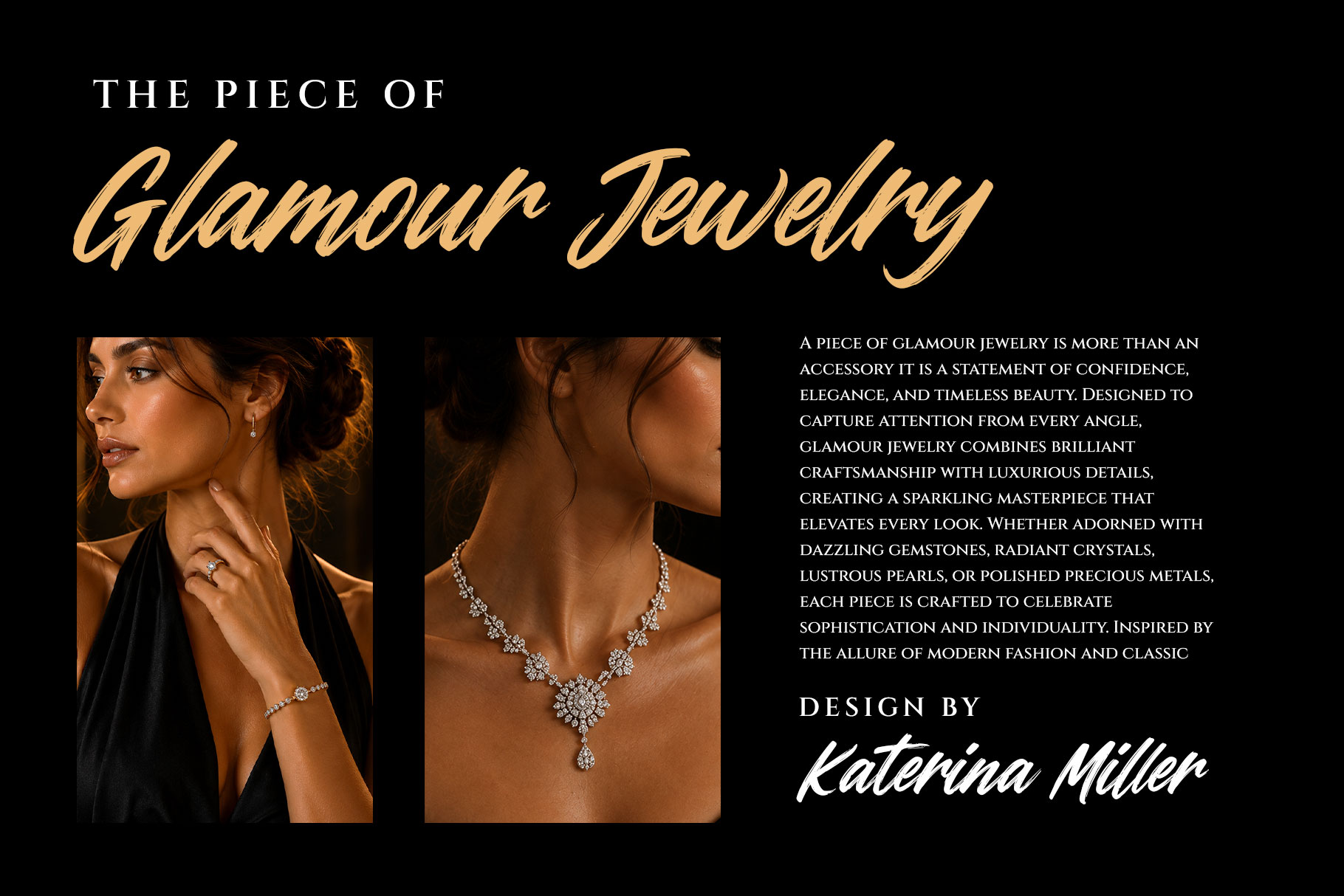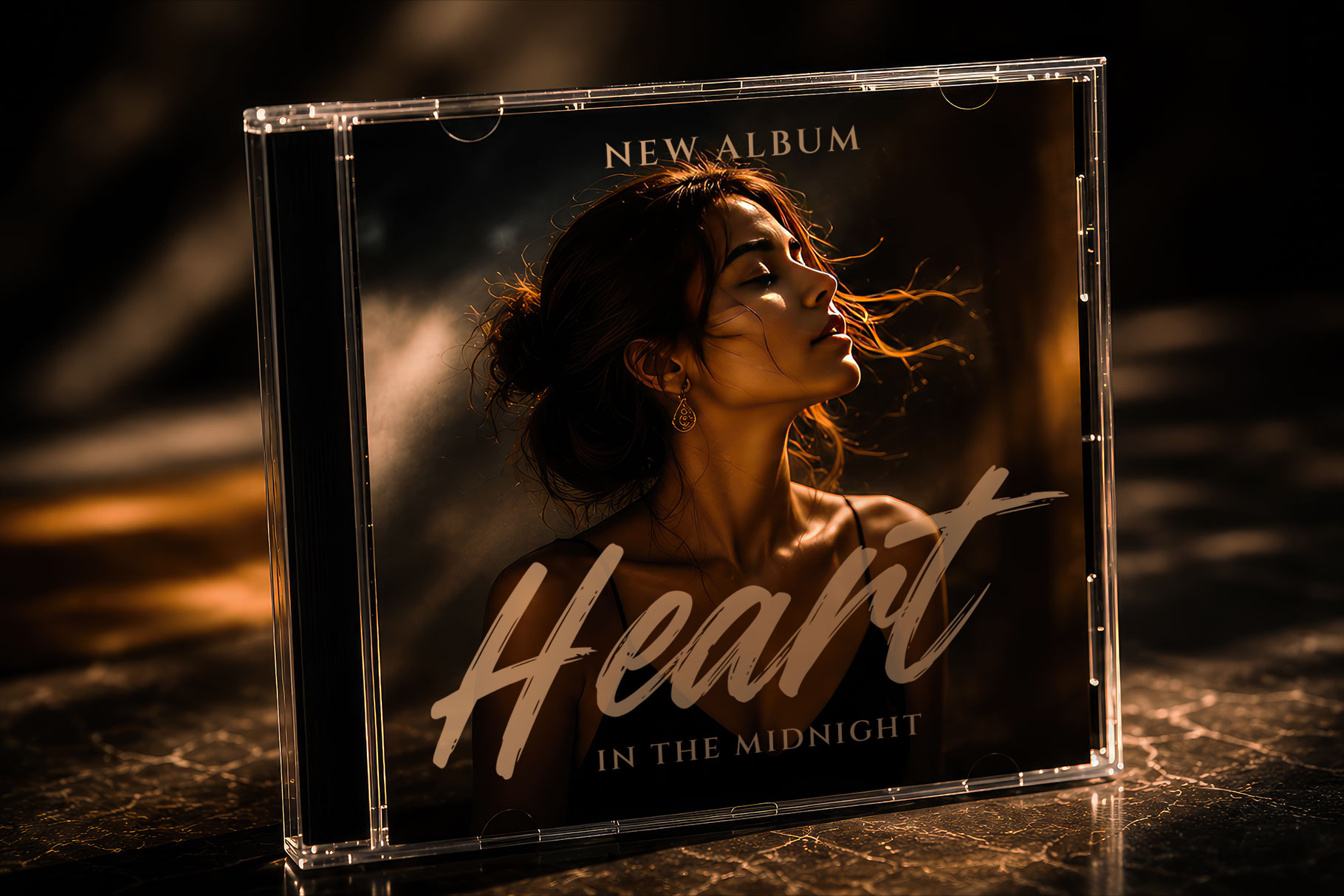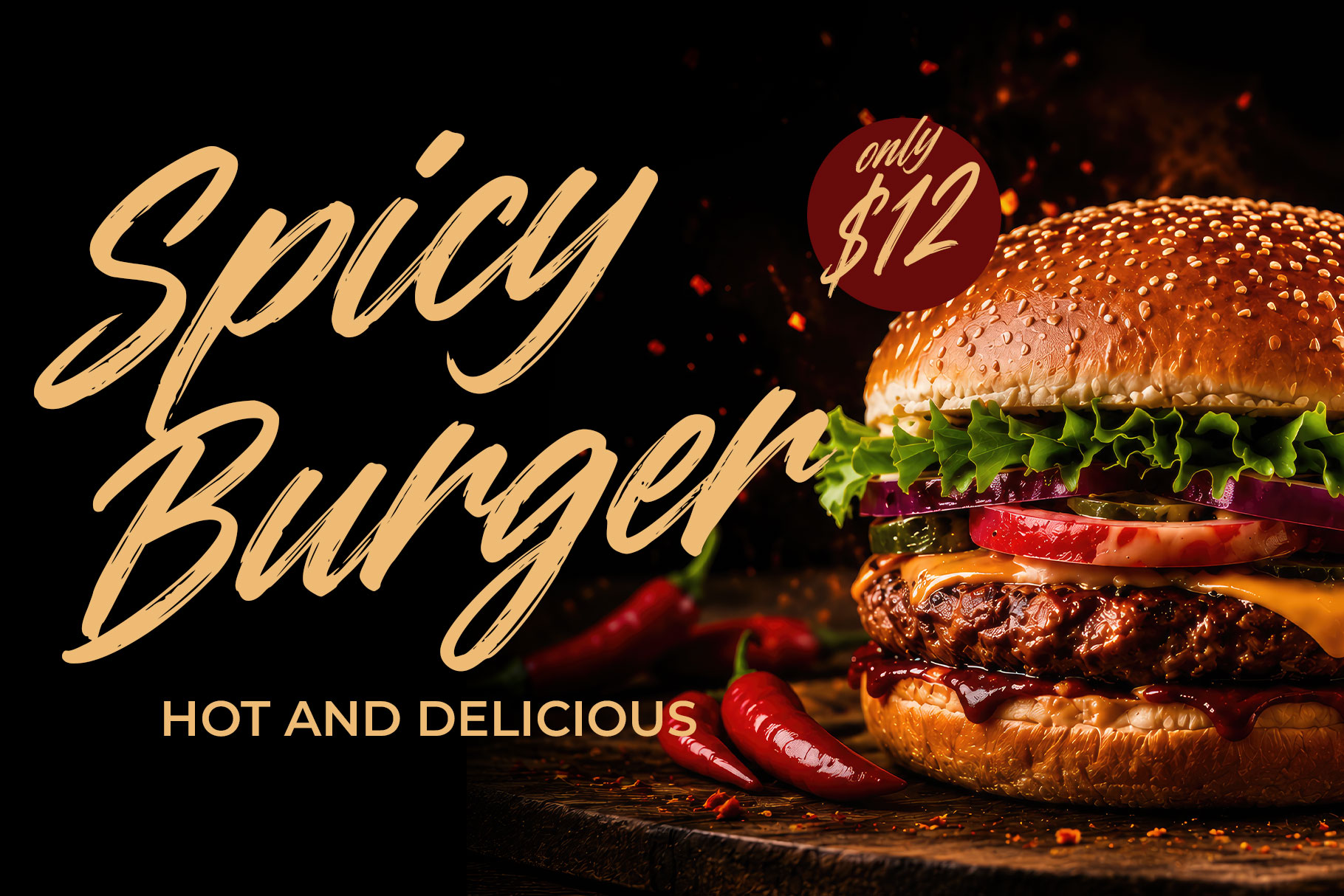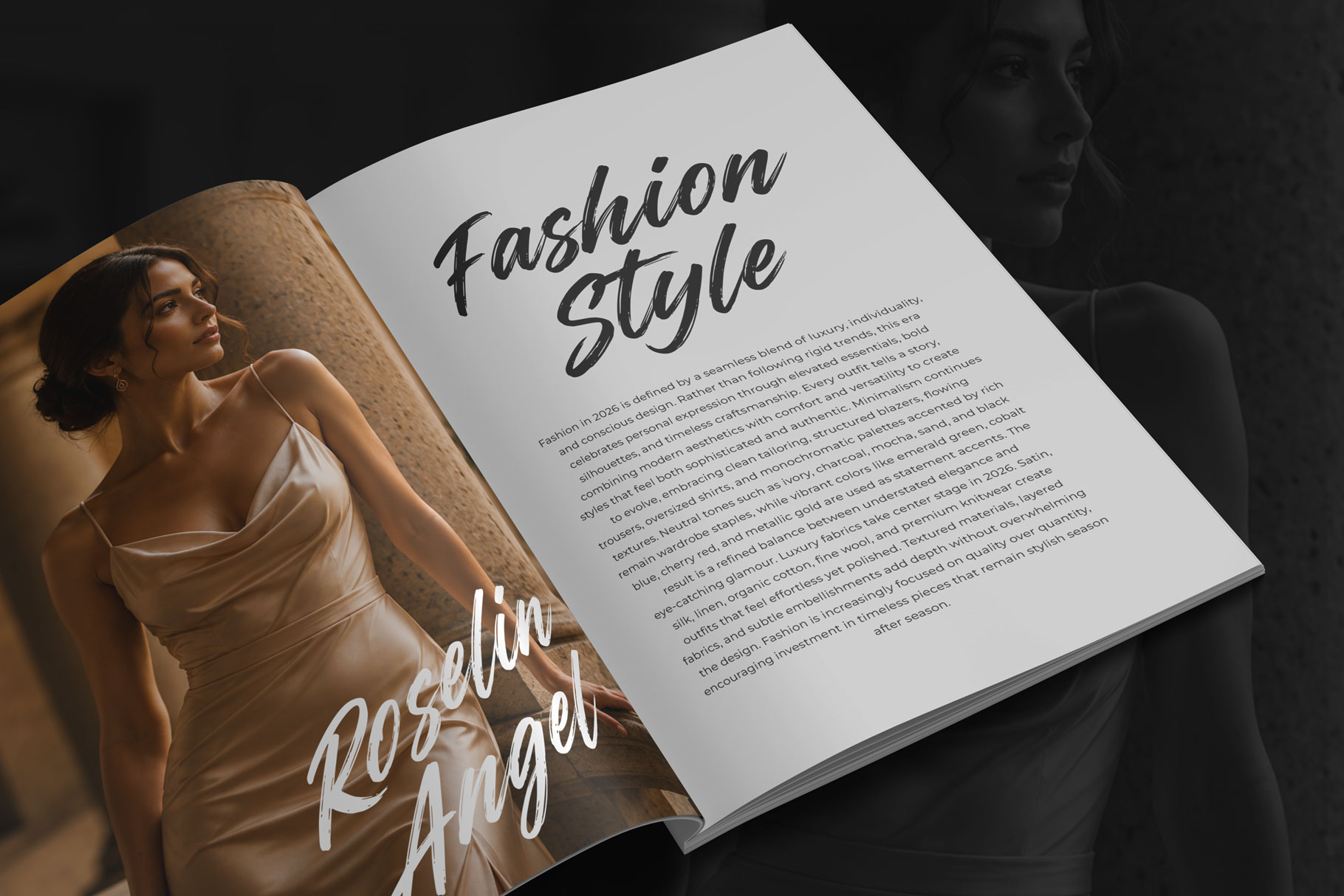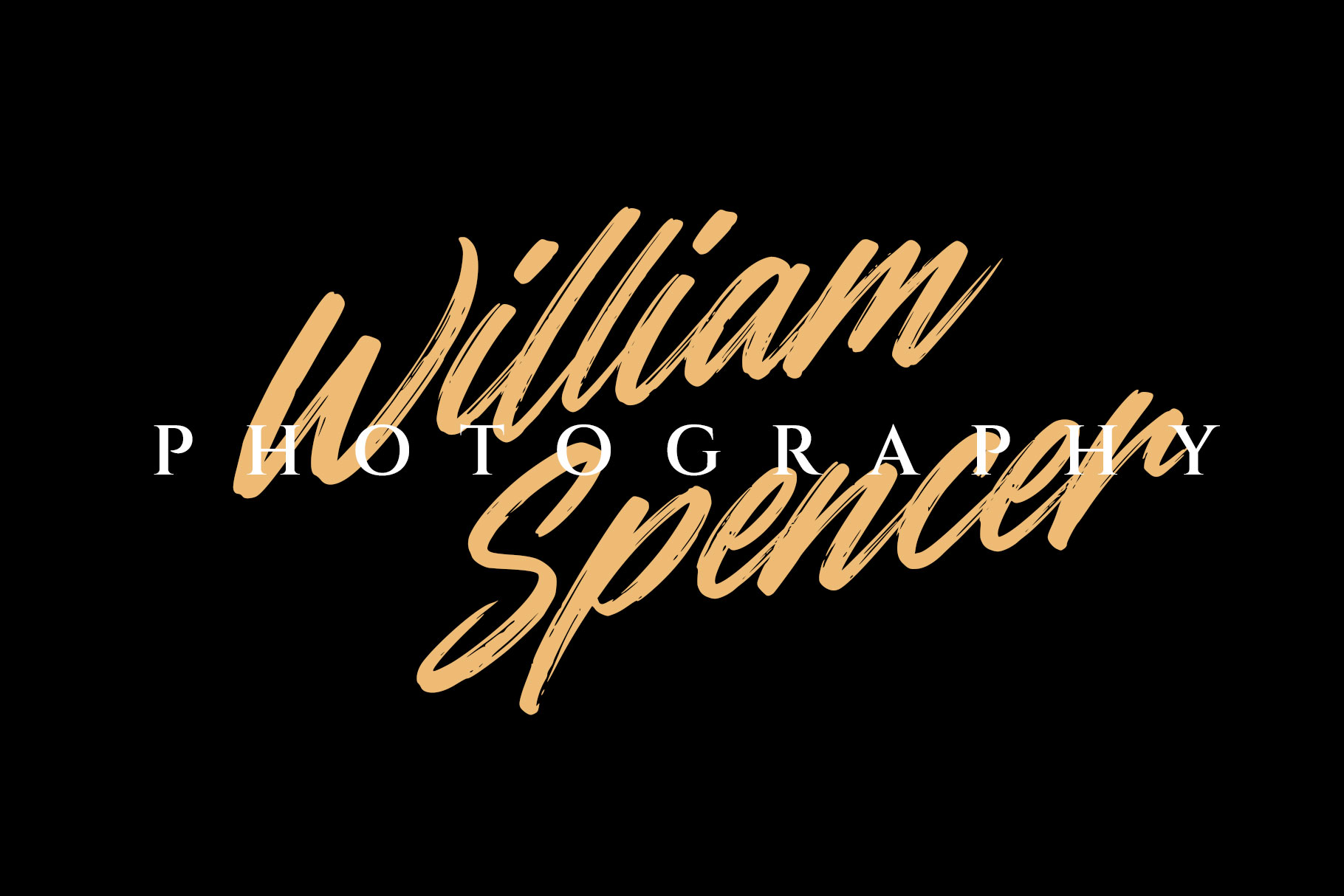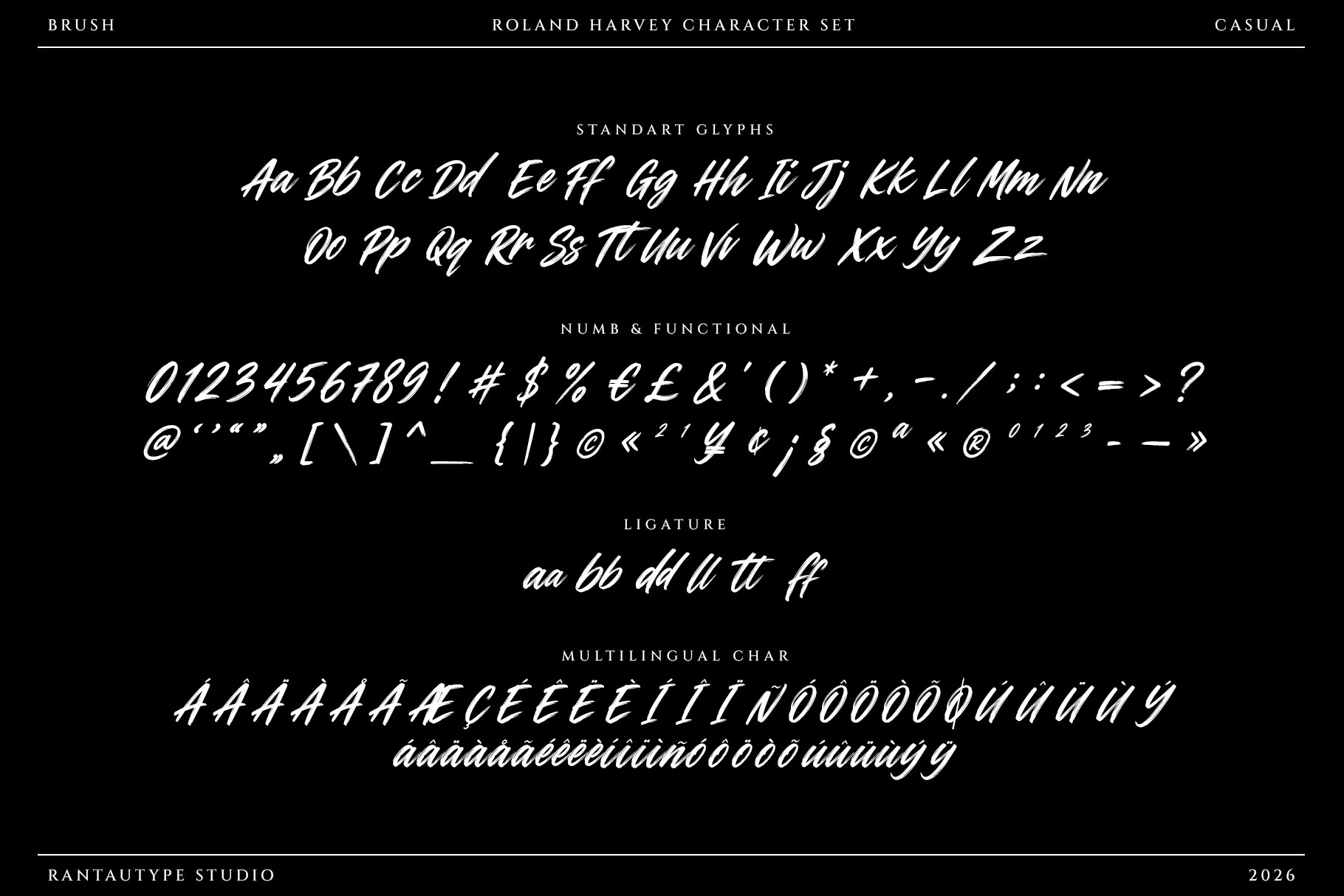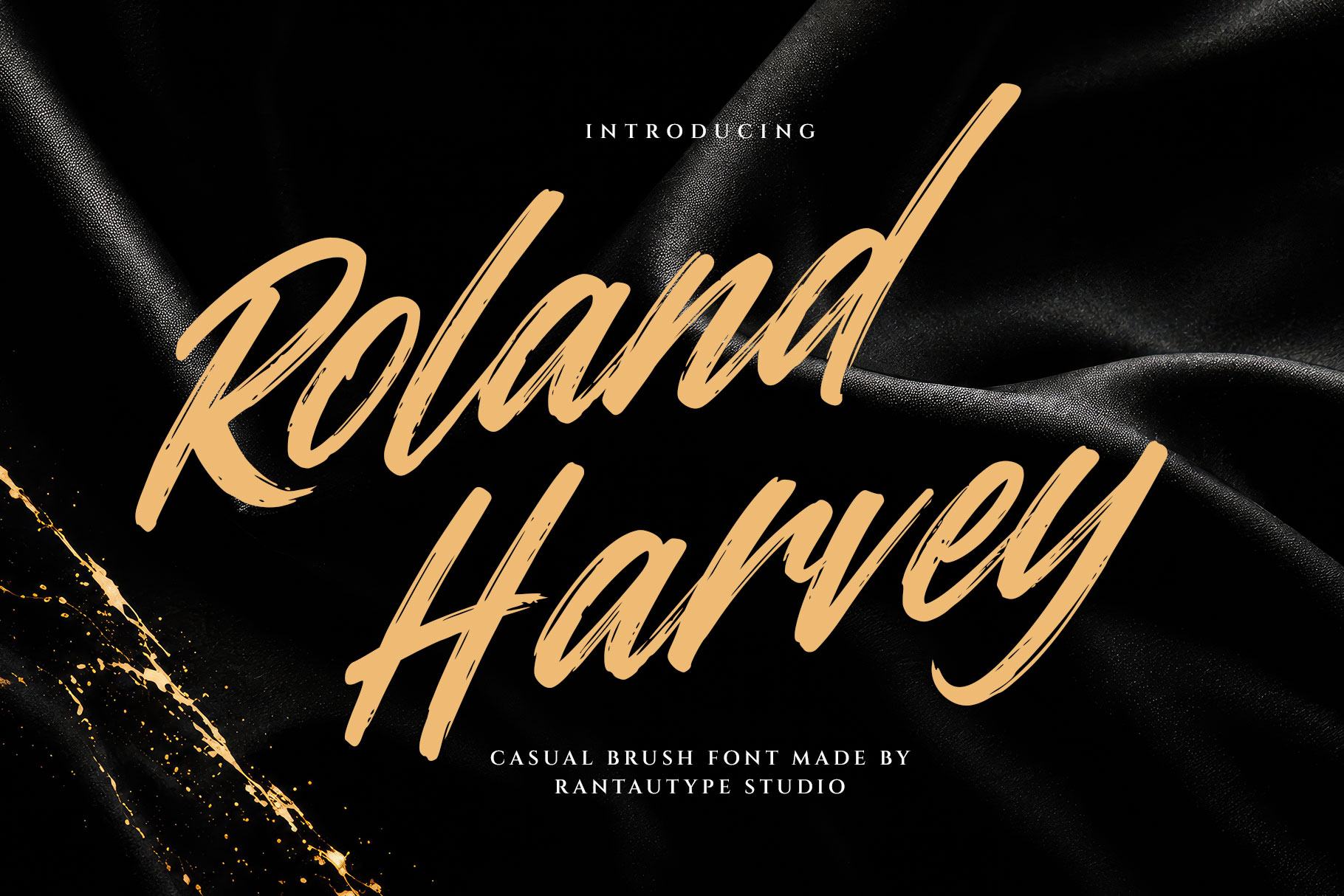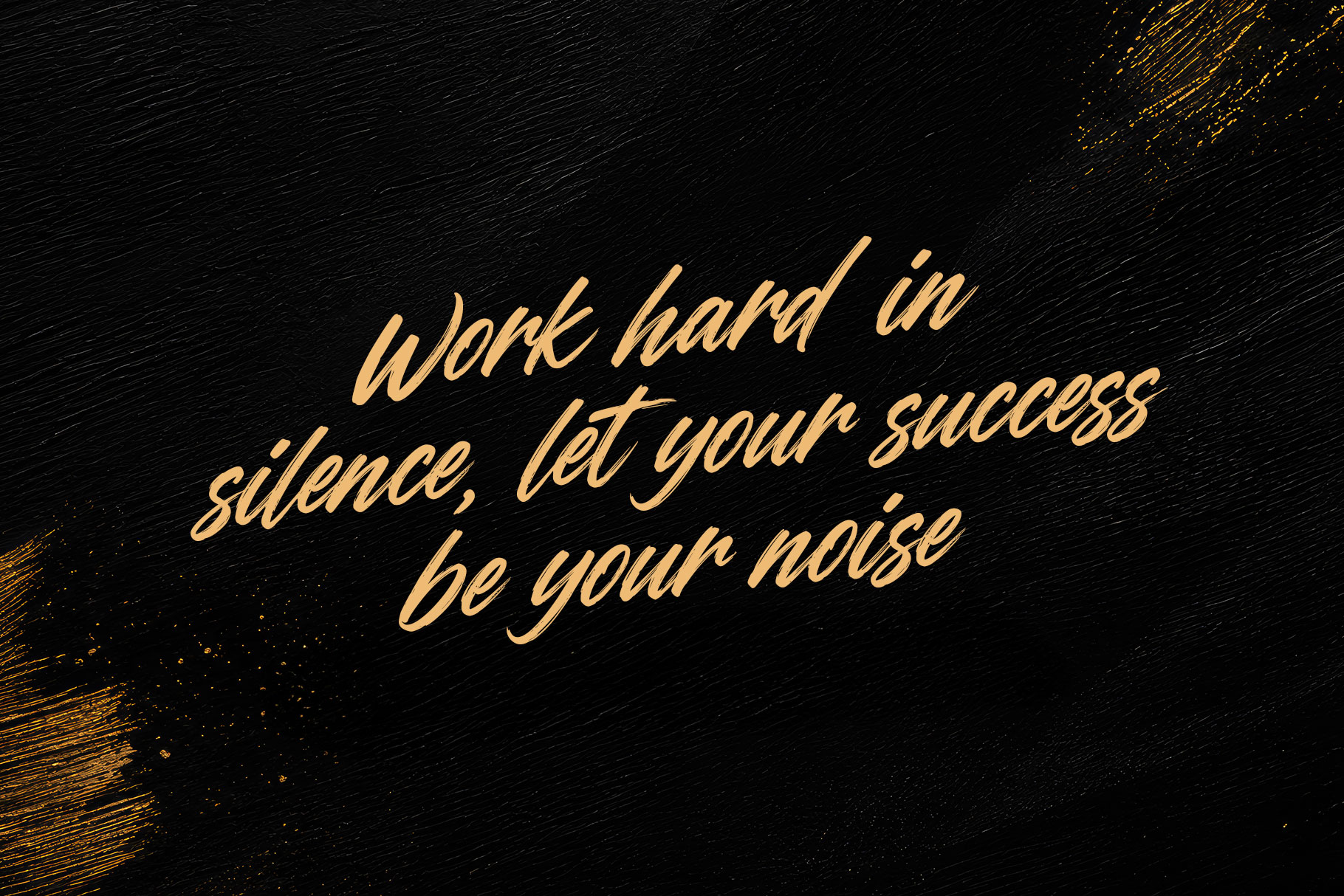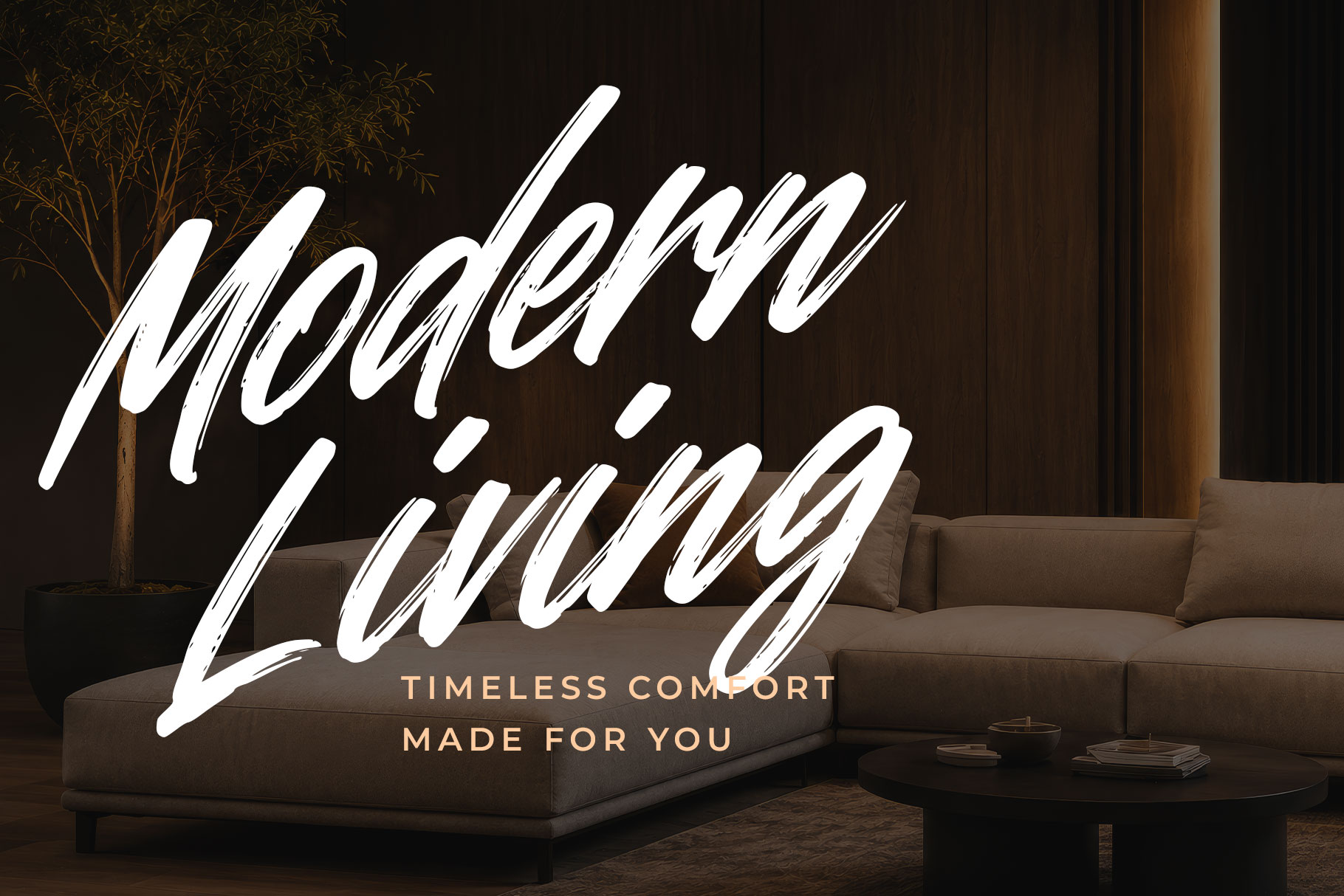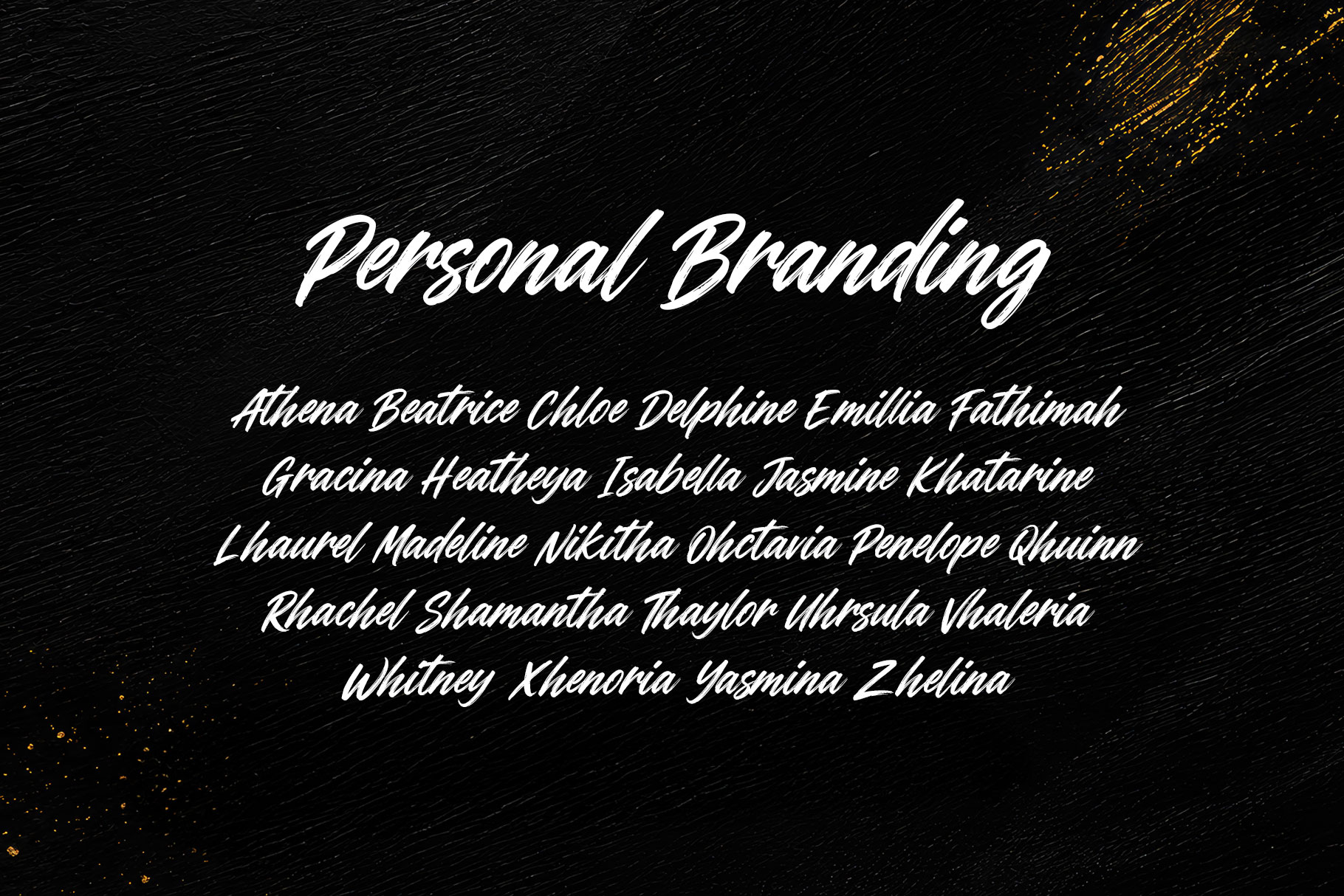
Roland Harvey is casual brush font captures the perfect balance between creative freedom and modern style, delivering an authentic handwritten appearance that feels energetic, expressive, and effortlessly fashionable. Inspired by the natural movement of a paintbrush, every character features textured strokes, dynamic curves, and smooth flowing connections that create a warm and inviting personality. The slightly rough edges and organic brush details add genuine character, making the typeface feel handcrafted rather than digitally constructed.
Roland Harvey is a perfectly choice for any creative endeavor, creating, modern, lifestyle design such as logotype, title, cover, branding, invitations, wedding designs, display and magazine, social media posts, advertisements, printed quotes, product packaging, corporate brand, product designs, labels, photography, watermarks, special events and any other project with casual touch.